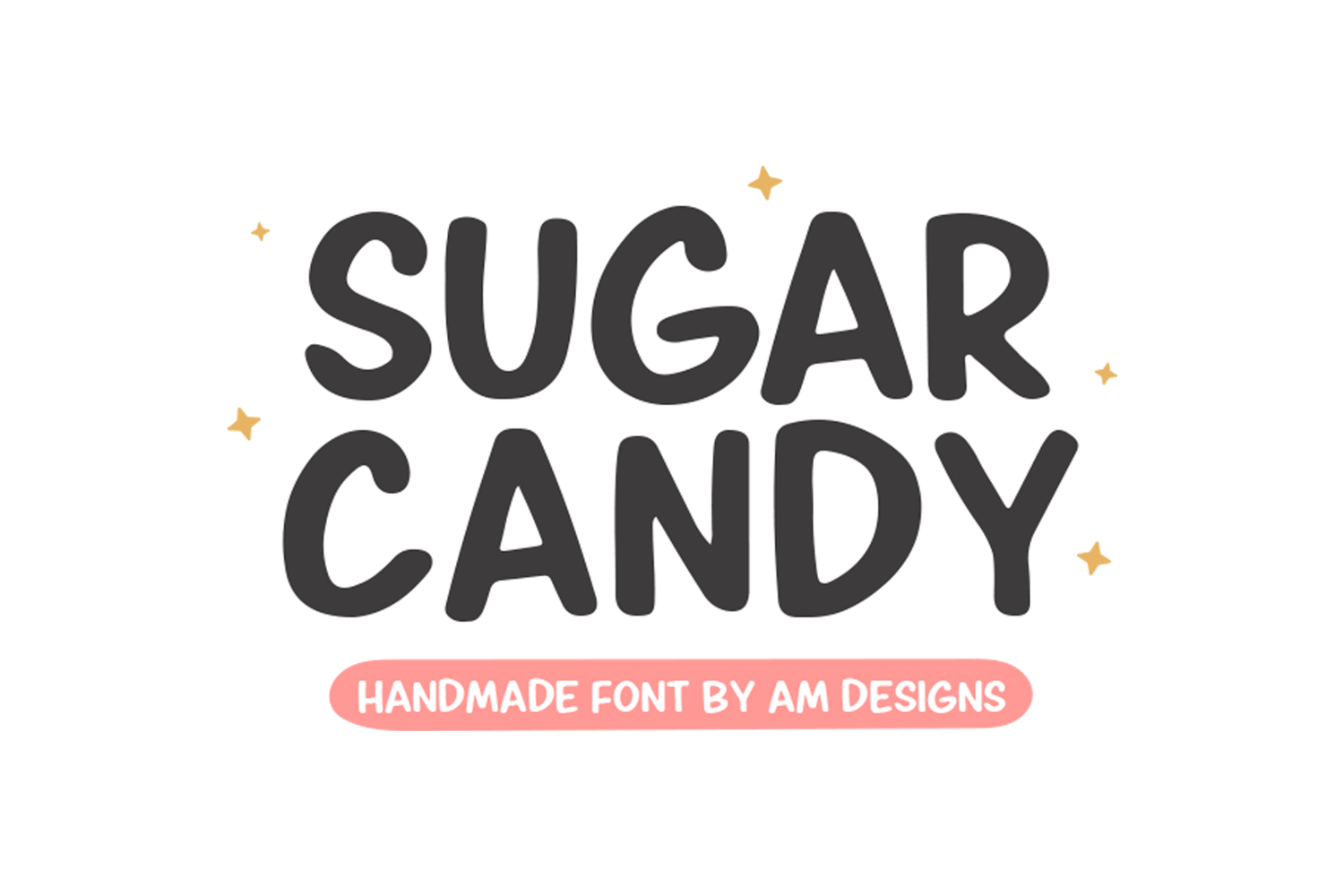
Sugar Candy Font
Sugar Candy
Introducing the Sugar Candy Font- an embodiment of pure joy, crafted with an intimate touch of handwriting. This radiant typeface exudes a delightful mix of friendliness, fun, and quaint allure, likened to the enchanting sweetness of candy. Each character comes alive with softly rounded edges and subtly irregular shapes, mirroring the candid imperfections of a hand-drawn artifact. From crafting enchanting birthday invites, to enticing toy branding, and even livening up kid-themed ventures, Sugar Candy Font is your go-to choice for any design that yearns for that elusive, yet captivating, approachable ambiance. Steeped in joy and warm vibes, this font packs a playful punch!